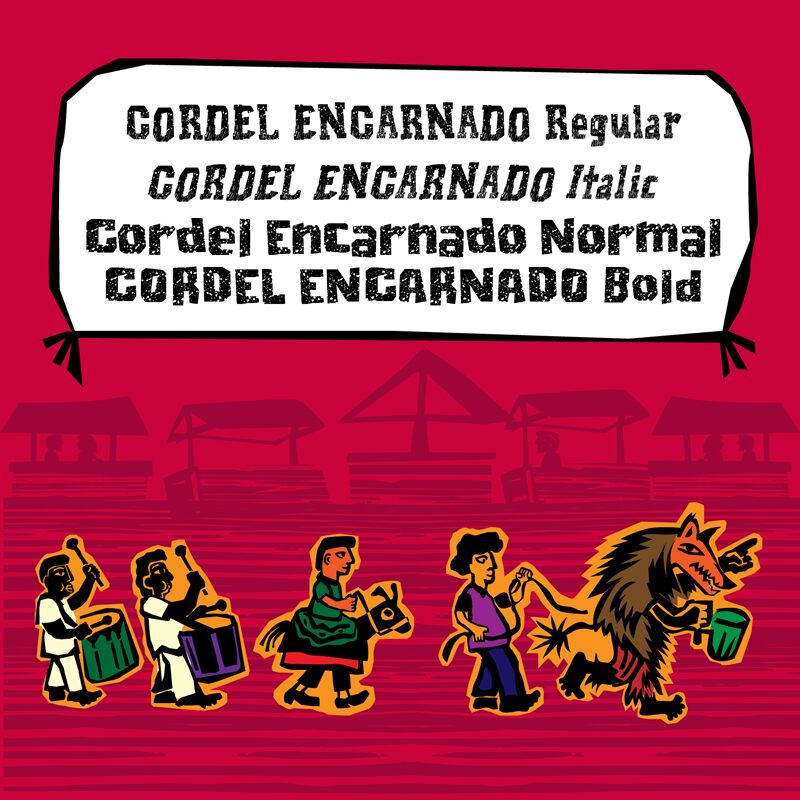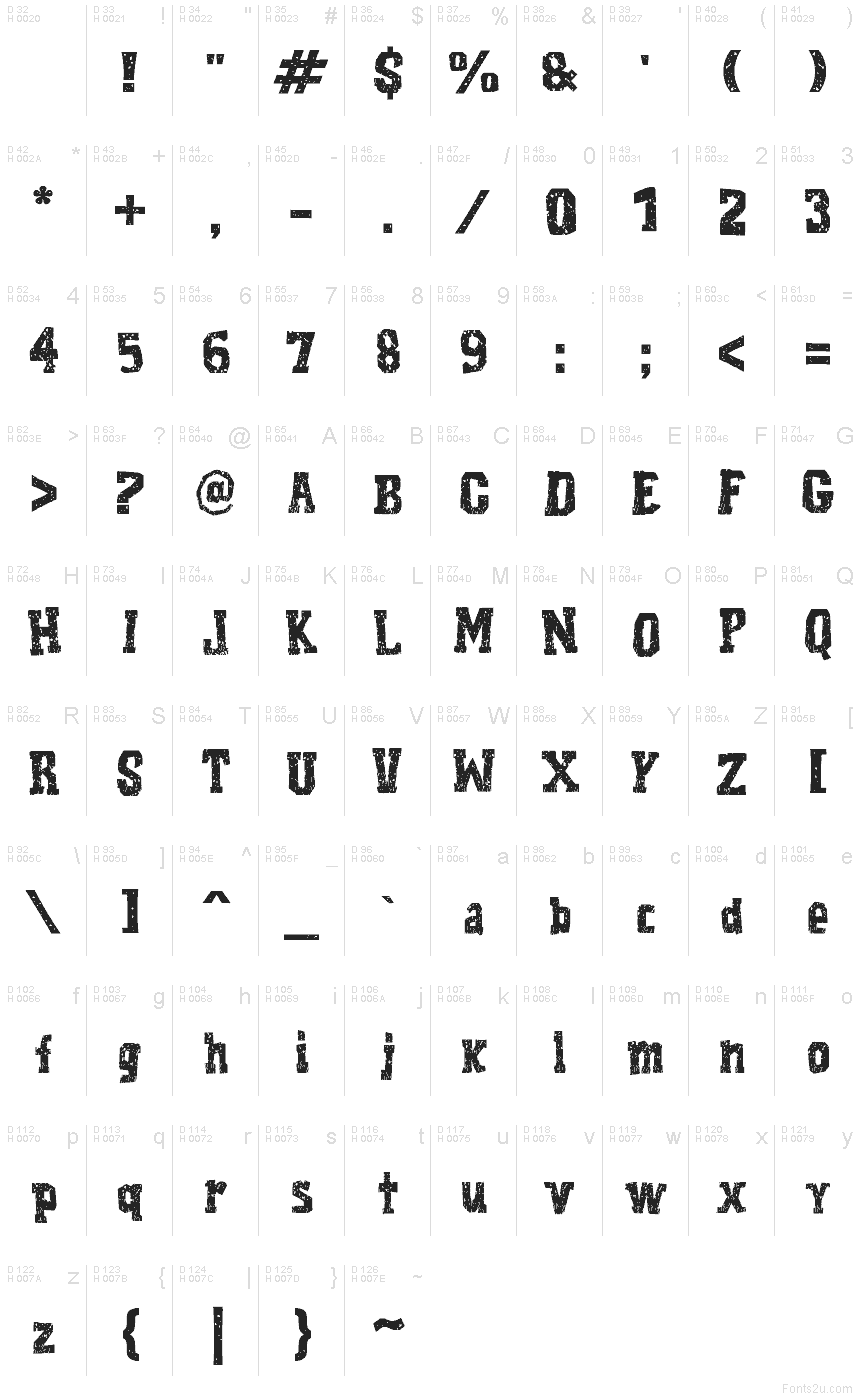
Cordel Encarnado Regular
Cordel Encarnado font is a visually dynamic eroded display font by Galdino Otten Fonts with artistic, distinctive visual qualities. It’s bold retro design boasts ornate detailing, stylistic curves, and distressed textures for that dramatic finish. Each character of this amazing typeface tells its own story and individually reflects on its surroundings both in print and online.